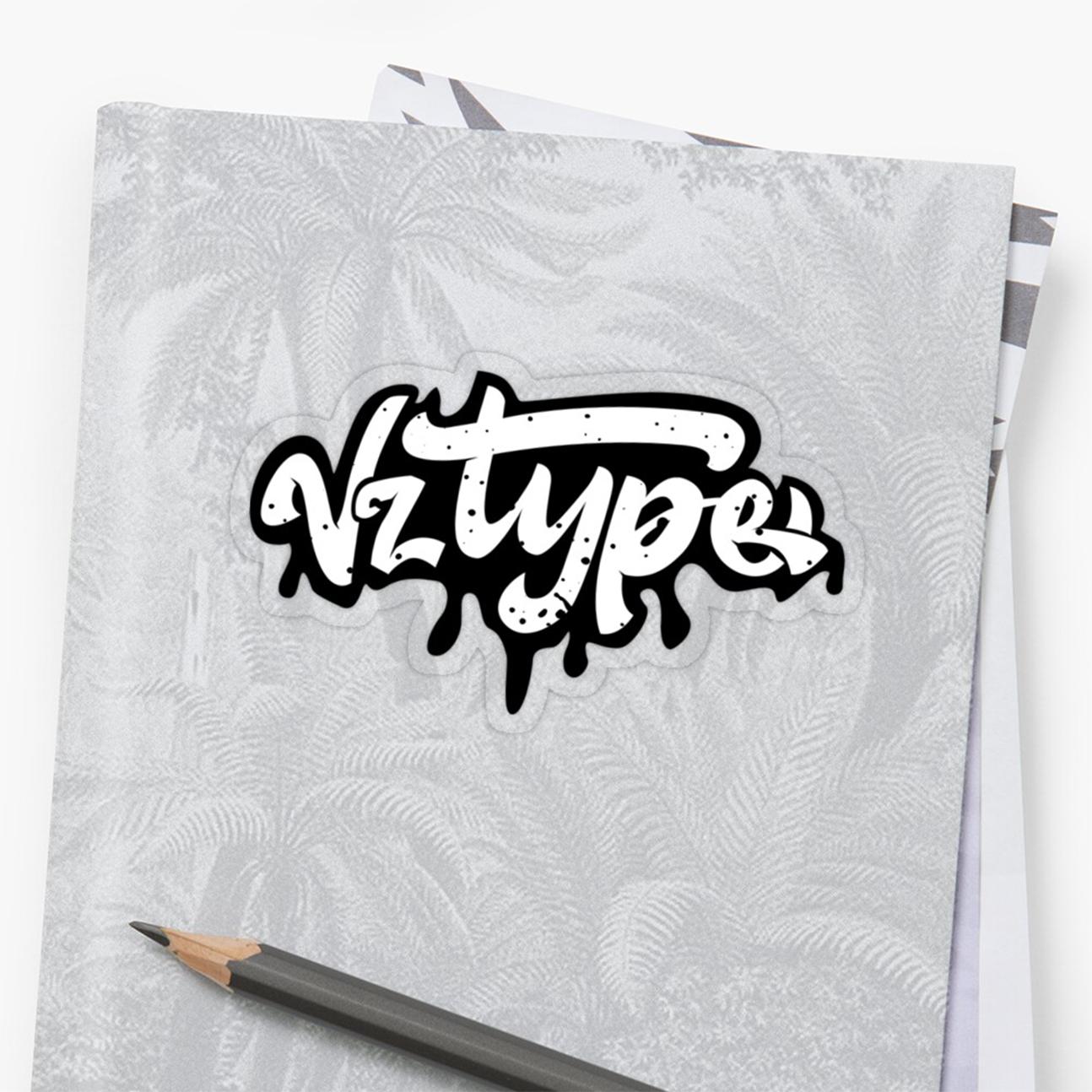
Brimington Font Description
Brimington combines attractive curves with a fresh urban edge, delivering a stylish script font. This font will add an eye-catching appeal to your logo designs, brand imagery, handwritten quotes, product packaging, merchandise & social media posts.